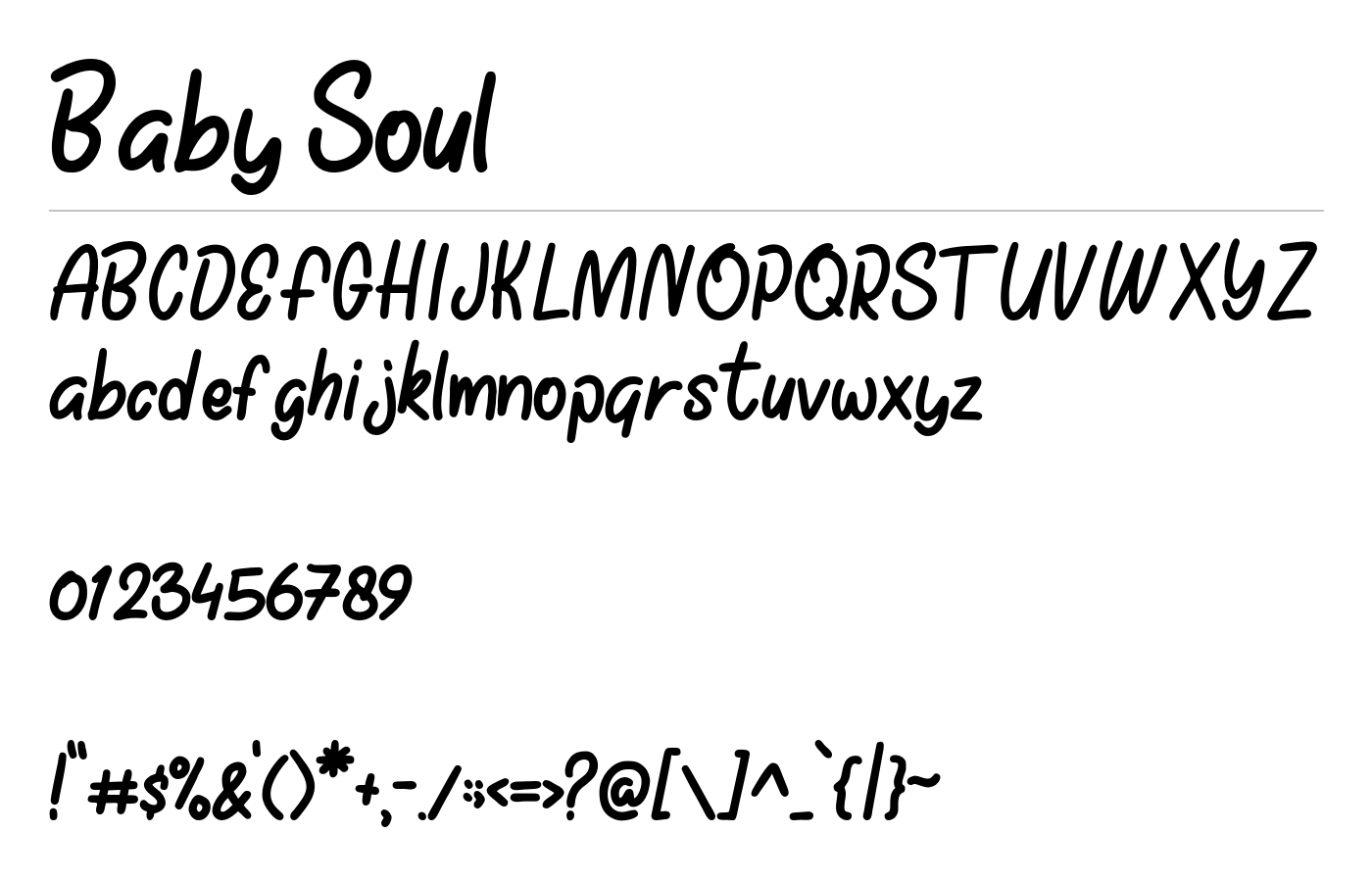
Baby Soul is a playful and casual script font with a friendly, handwritten feel. Its smooth, slightly irregular strokes and moderate x-height give it a warm, approachable personality, making it ideal for informal branding, children’s products, and creative projects that want to convey a fun and personal touch. This font works well in headlines, logos, and packaging where an inviting and lively style is desired.
Baby Soul Font
About Baby Soul Font